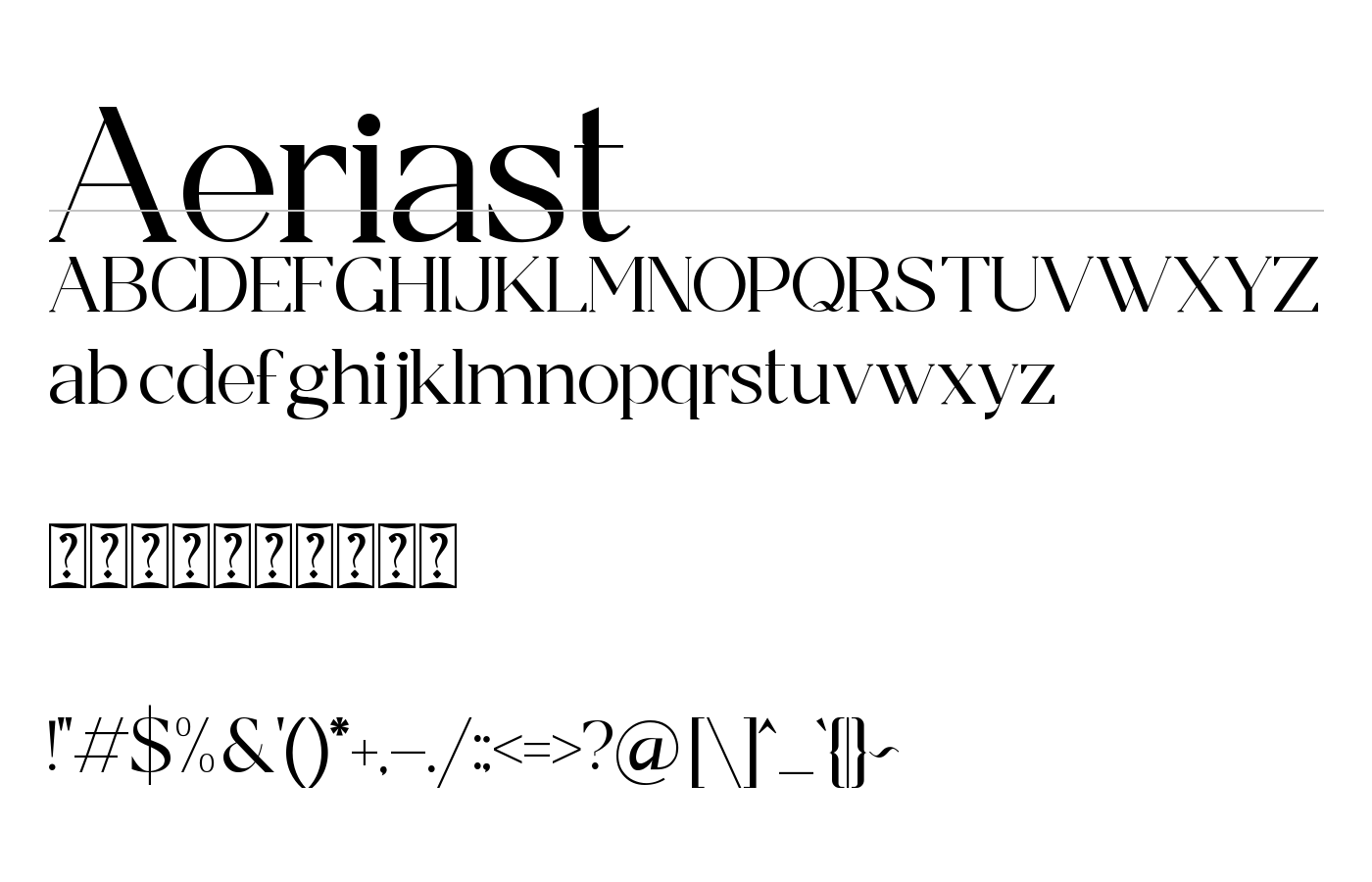
Aeriast is an elegant serif font with a modern, high-contrast design featuring thin, sharp strokes and delicate serifs that give it a refined, sophisticated look. Its tall x-height and balanced proportions make it ideal for stylish editorial layouts, luxury branding, and high-end fashion projects where a graceful yet contemporary feel is desired. This font shines in headlines and display text, adding a touch of class and clarity without sacrificing uniqueness.
Aeriast Font